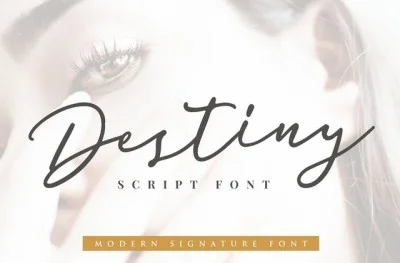
The Destiny Signature Font excels in inspiring design applications including motivational branding, life coaching logos, spiritual product packaging, inspirational greeting cards, personal development materials, wedding invitations, artistic portfolios, meaningful social media graphics, vision board designs, and transformational business identities. Its purposeful script style makes it perfect for projects requiring meaningful connection that communicates hope and establishes emotional bonds with audiences seeking inspiration and personal growth.
What makes the Destiny Signature Font truly exciting is its remarkable ability to capture the essence of aspiration and personal transformation through thoughtfully designed letterforms. The font features flowing, uplifting strokes with inspirational flourishes and optimistic proportions that create a distinctly hopeful appearance. Each character displays exceptional craftsmanship with graceful curves, purposeful connections, and motivational energy that give text a destiny-driven quality. The font's inspirational character and forward-moving rhythm create an atmosphere of possibility while maintaining authentic handwritten warmth.
The Destiny Signature Font family typically includes regular weight with extensive character coverage, featuring uppercase and lowercase letters, numerals, punctuation marks, and international characters. The typeface often incorporates stylistic alternates, contextual ligatures, and inspirational swashes that enhance its signature authenticity. These additional glyphs provide designers with creative flexibility to customize text appearance and achieve more natural-looking meaningful handwriting that reflects the font's purposeful and transformational character.
This inspiring signature font distinguishes itself through its perfect balance of aspiration and authenticity, making it ideal for brands and projects focused on personal growth and positive change. Unlike ordinary script fonts that lack emotional depth, Destiny Signature Font embraces the power of meaningful design to inspire and motivate audiences. The font's purposeful character makes it essential for life coaches, spiritual brands, and transformational businesses where connecting with people's dreams and aspirations is fundamental to success.